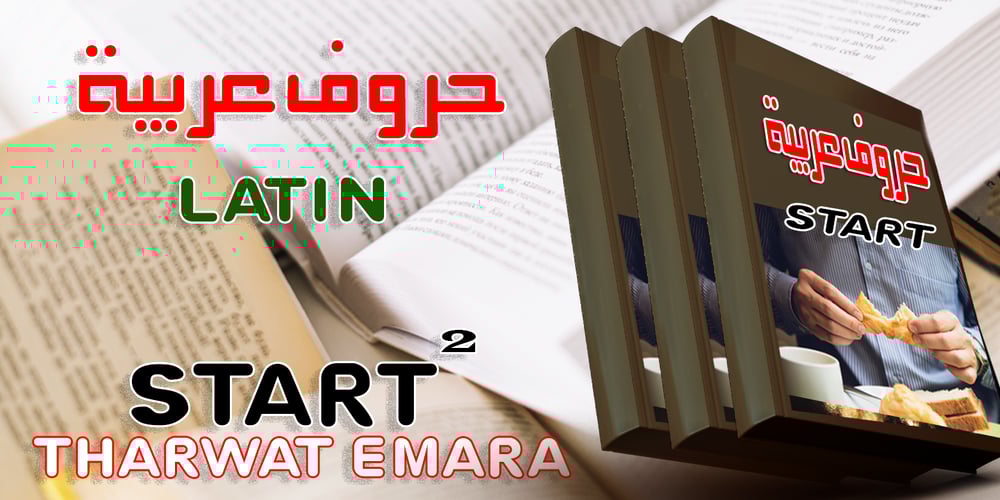
TE Start2
TE Start2 font
TE Start2 Font Family was designed by Tharwat Mohamed Emara and published by Tharwat Emara. TE Start2 contains 3 styles and family package options. Start 2 is a mixture of modern style with traditional functionality. It is flexible and has many beautiful and wonderful features. This font will work for modern and important designs.